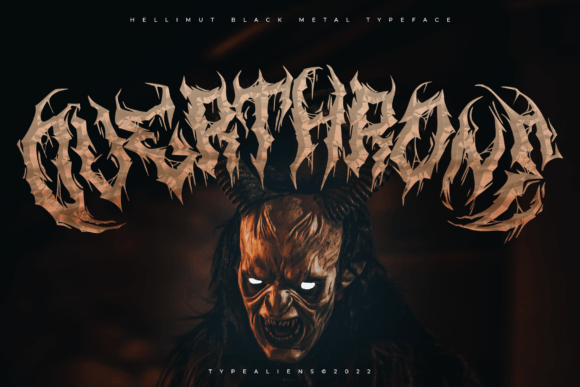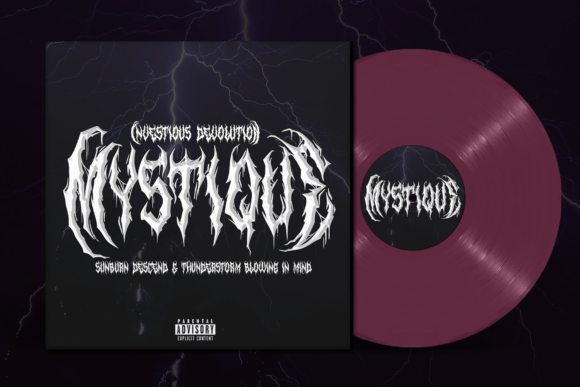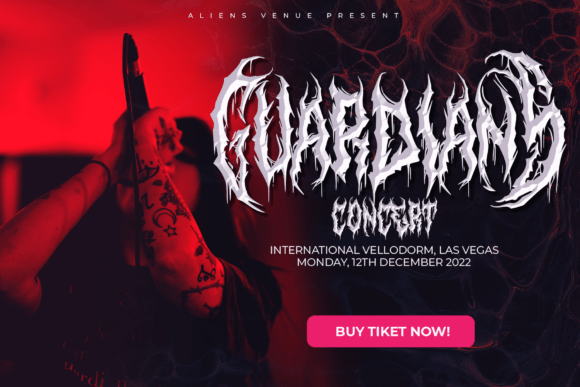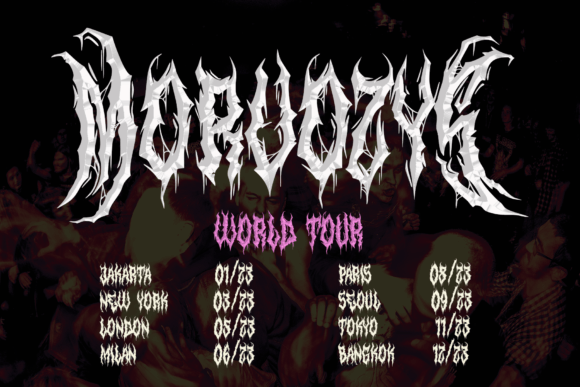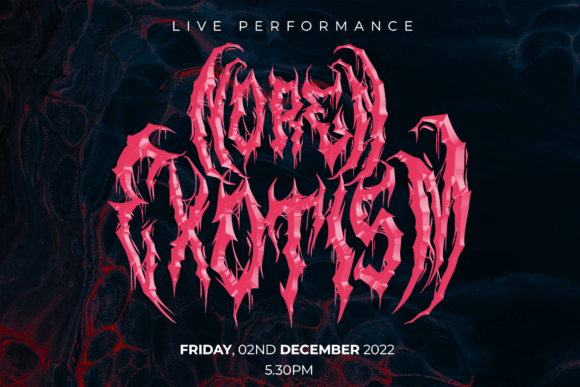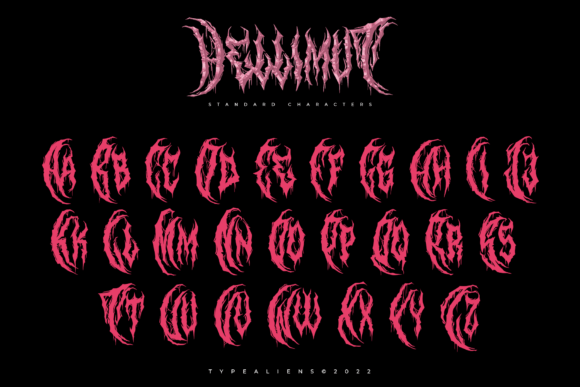
Hellimut Font: Unleash the Darkness in Your Designs
Are you a designer or crafter looking for a unique and bold font to add an edge to your creations? Look no further than the Hellimut Font, a gothic font that is sure to make a statement. In this article, we’ll dive into the world of Hellimut, exploring its origins, features, and uses, as well as provide you with a download link to get your hands on this incredible font.
What is Hellimut Font?
Hellimut is a gothic font that has been modified from a serif font by adding unique additions such as “roots” to produce a distinctive and eye-catching design. This scary-looking, complicated display font is perfect for creating logos, concert posters, and other designs that require a bold and edgy look. The font’s intricate details and dramatic flair make it a standout among other fonts, and its versatility ensures that it can be used in a variety of creative projects.
Origins of Hellimut Font
The Hellimut Font is believed to have been inspired by traditional gothic fonts, with a modern twist. The addition of “roots” and other unique elements gives the font a one-of-a-kind look that is sure to grab attention. The font’s creator aimed to produce a design that would be perfect for metal band logos and concert posters, and it’s clear that they’ve succeeded.
Features of Hellimut Font
The Hellimut Font comes with a range of features that make it a must-have for designers and crafters. Some of the key features include:
- Unique Design: The font’s intricate details and dramatic flair make it a standout among other fonts.
- Versatility: Hellimut can be used in a variety of creative projects, from logos and concert posters to t-shirts and other merchandise.
Uses of Hellimut Font
The Hellimut Font is perfect for a range of creative projects, including:
- Metal Band Logos: The font’s bold and edgy design makes it perfect for metal band logos and concert posters.
- Concert Posters: Create eye-catching concert posters with Hellimut, and make your event stand out from the crowd.
- T-Shirts and Merchandise: Use Hellimut to create unique and bold designs for t-shirts, hoodies, and other merchandise.
- Graphic Design: The font’s versatility makes it perfect for a range of graphic design projects, from brochures to business cards.
The Hellimut Font is a unique and bold design that is sure to add an edge to your creations. With its intricate details and dramatic flair, this gothic font is perfect for metal band logos, concert posters, and other designs that require a bold and edgy look. Download Hellimut today and unleash the darkness in your designs!